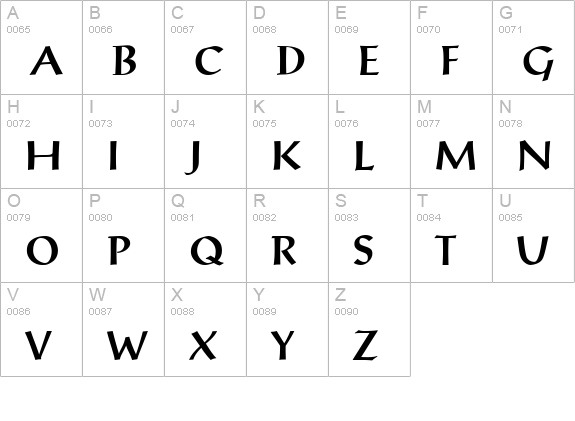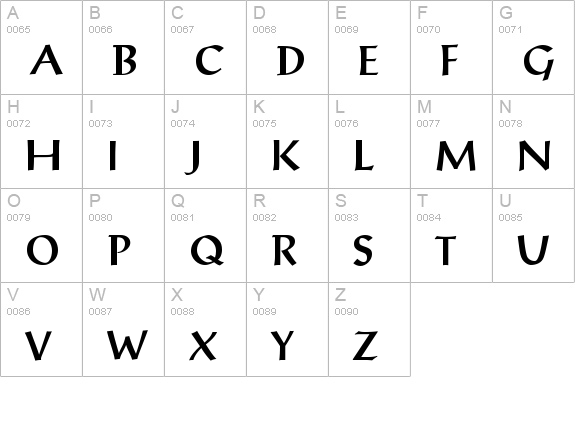
Antiqua SSi Bold Font Details
Antiqua SSi Bold is a strong, high-contrast variant in the Antiqua typeface family \xE2\x80\x94 well suited to headlines, attention-grabbing titles, and strong calls-to-action.
Antiqua SSi Bold font is a timeless and elegant typeface that exudes sophistication and class. Its bold and striking design makes it perfect for headlines, titles, and any text that demands attention. The font's classic serifs and clean lines give it a sense of refinement and tradition, making it a versatile choice for both print and digital projects. The best part is that Antiqua SSi Bold font is available for free download at FontsMarket.com. This means you can easily access and use this beautiful font in your designs without any cost. Whether you're working on a professional project or a personal creative endeavor, Antiqua SSi Bold font will elevate your typography and make a lasting impression.